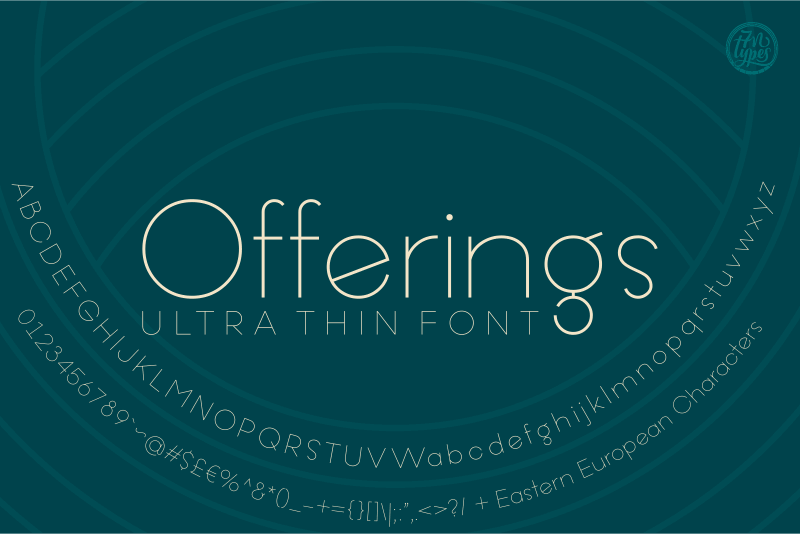
Font name: | Offerings |
Offering is an ultra thin, circle based sans serif font. It is designed smoothly using monoline circle shape to make it looks and feels elegant. License Personal use: FREE (Donation is much appreciated!) Commercial use: BUY it on Creative Fabrica: https://www.creativefabrica.com/product/offerings/ref/87/ Contact me [c7nazara@gmail.com] or visit my website https://7ntypes.com if you have any request or question. Thank you. |